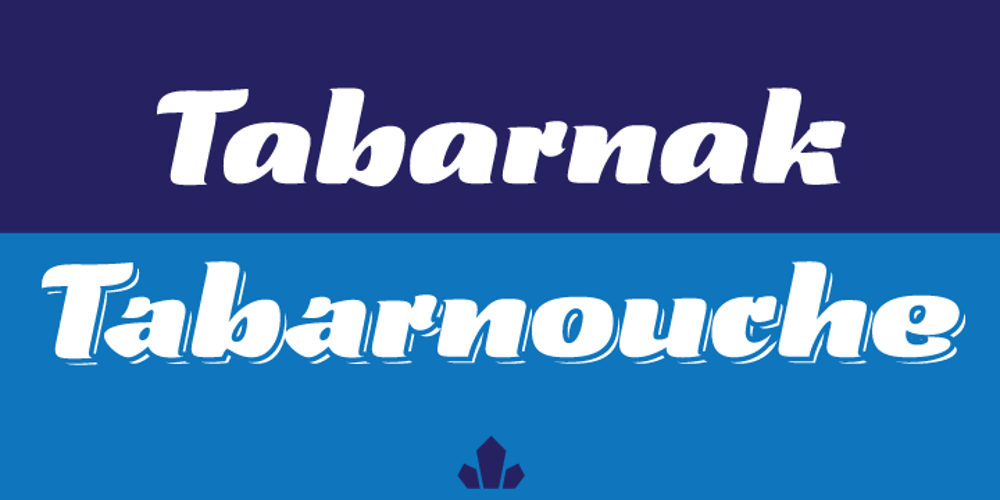
Tabarnak Font Family was designed by Patrick Griffin and published by Canada Type. Tabarnak contains 2 styles and family package options. Tabarnak started out as an assessment and correction of an old concept by George Wilkens. The original idea was for a bold upright alphabet reminiscent of Oz Cooper’s work, but ornamented with some shocard/signage traits. That idea was radically redrawn and reinvented to become a simple 21st century font made to turn heads and induce a friendly rush. Tabarnouche is Tabarnak’s “jittery” incarnation. Just as great for packaging as they are for ads, posters, book and magazine covers, both Tabarnak and Tabarnouche come with about 600 characters, including tons of alternates, and support for the majority of Latin-based languages.